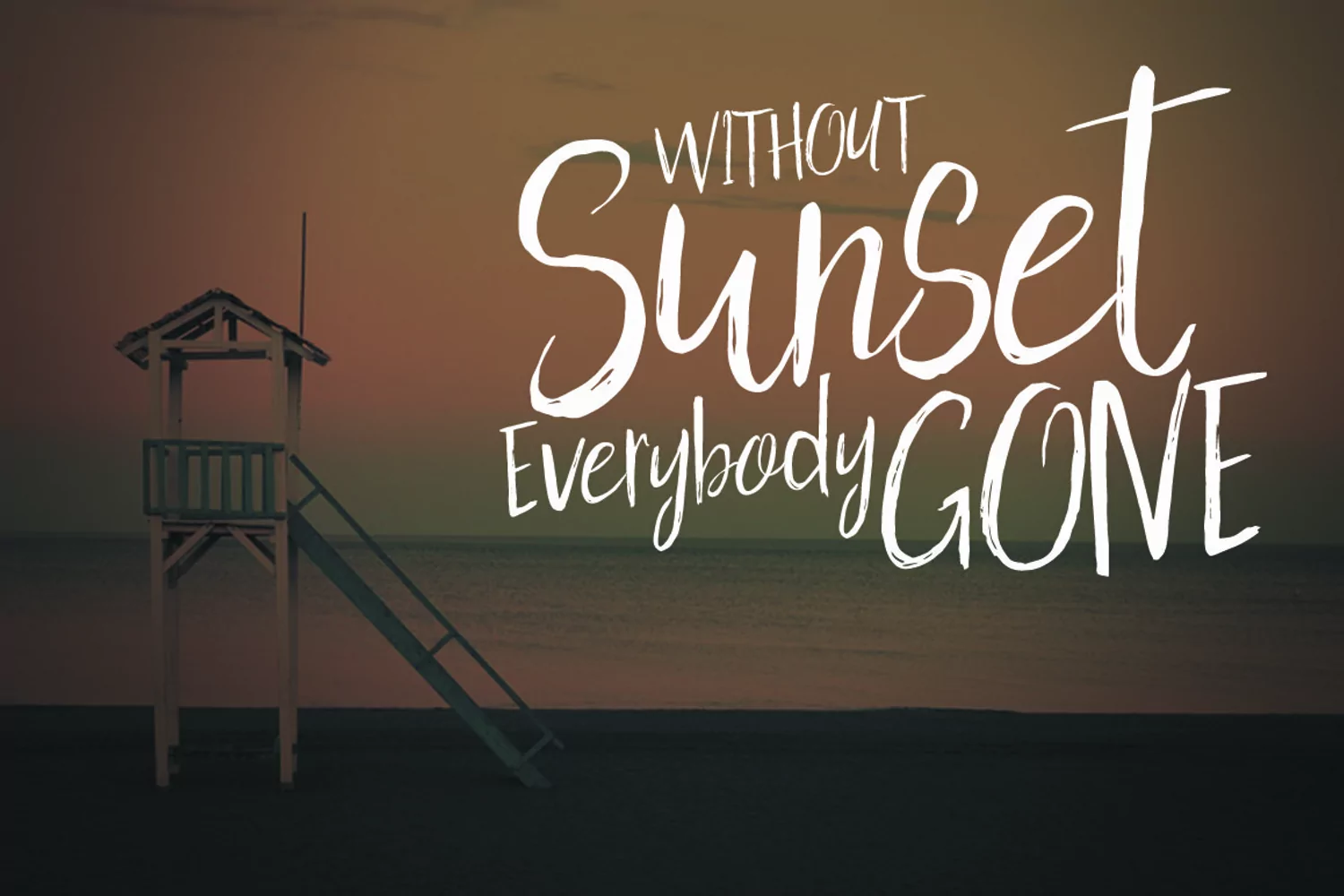
Holy Mountain Brush
Introducing Holy Mpuntain Brush Script, a modern hand drawn script font. The font has OpenType features (stylistic alternates, ligatures, swooshes and multilingual support) that can be accessed in Adobe Illustrator, InDesign, Corel Draw X. Comes in both OTF and TTF extensions.